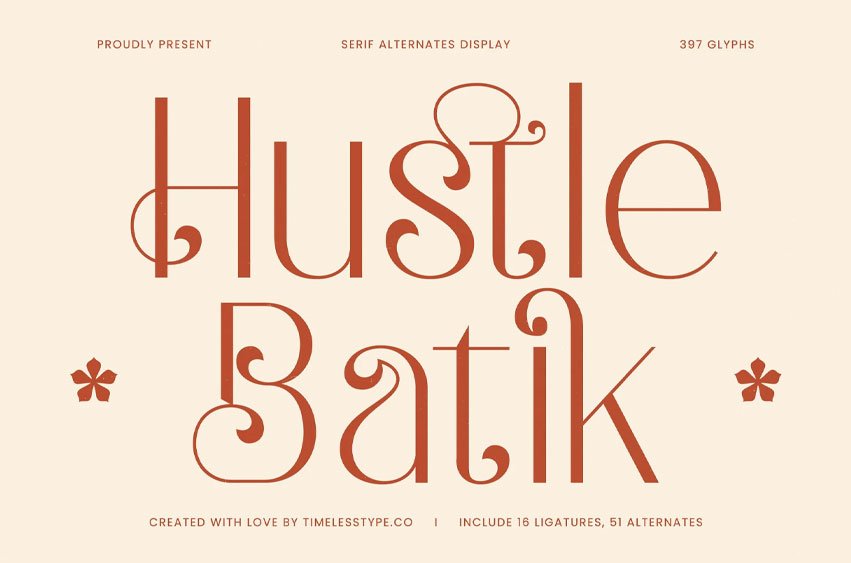
Hustle Batik Font
Hustle Batik Font is an elegant serif alternate display font with refined curves, ornamental swashes, and batik-inspired detailing that gives branding, packaging, editorials, and boutique identities a classy cultural flair while keeping everything modern, clean, and visually striking.